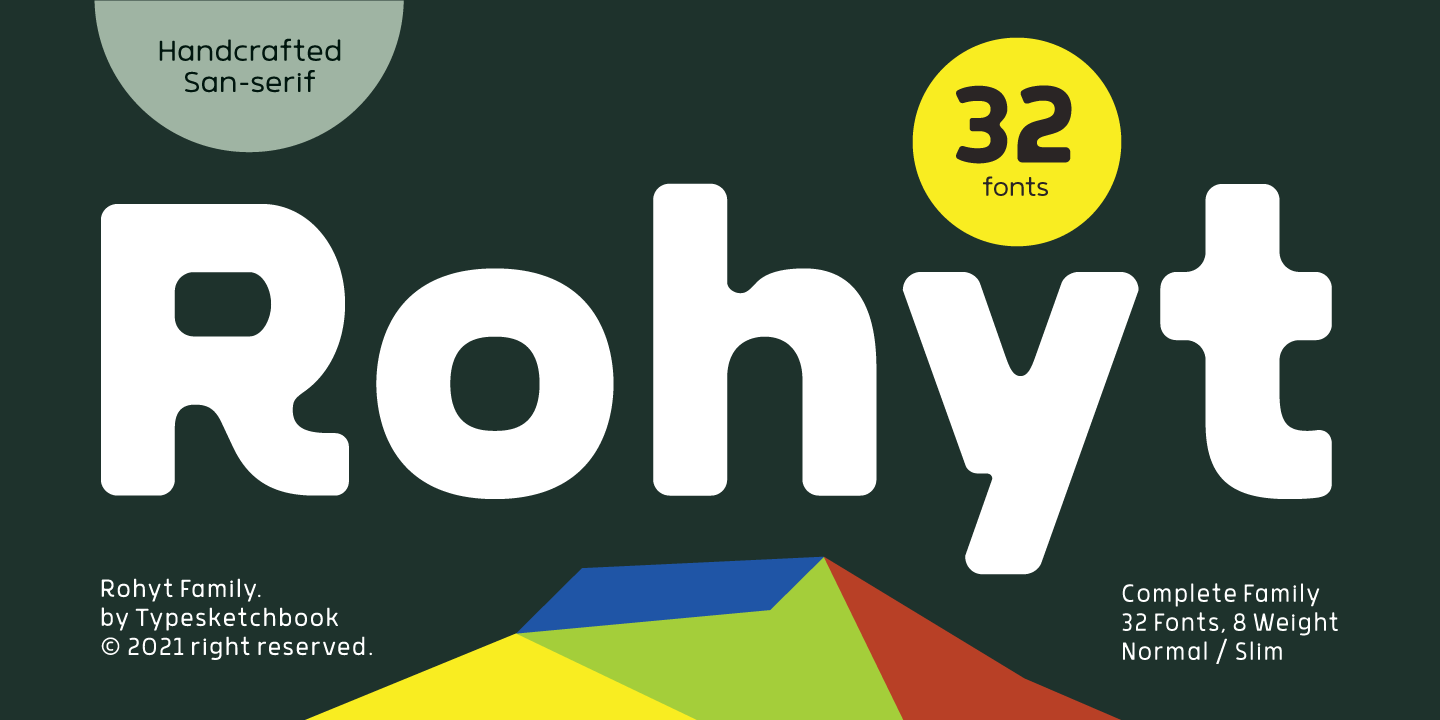
The Rohyt Font Free Download is ideal for headlines, logos, branding, and editorial layouts, offering a sleek, modern sans-serif aesthetic.
This font is exciting because its squarish, geometric design, inspired by 1950s and 1960s Italian typography, blends retro charm with contemporary precision.
The Rohyt family includes 32 styles across 8 weights—Thin, Extra Light, Light, Semi Light, Regular, Bold, Extra Bold, Black—with normal and slim options, plus italics, ensuring versatile design flexibility.
Elevate your projects with the Rohyt Font Free Download, a contemporary sans-serif typeface designed by Chatnarong Jingsuphatada and published by Typesketchbook in 2021. With 32 styles, Rohyt is perfect for creating bold headlines, clean logos, or professional layouts for magazines, websites, and packaging. Featuring 400+ glyphs with OpenType variants like ligatures and alternates, it supports multiple languages and is available in OTF, TTF, and WOFF formats for seamless use across print and digital platforms. As 2025 design trends favor clean, geometric typography, downloading Rohyt Font Free Download keeps your work modern and impactful. Test it today at fontspring.com for personal use, and consider purchasing a commercial license at myfonts.com for full access to its extensive styles.